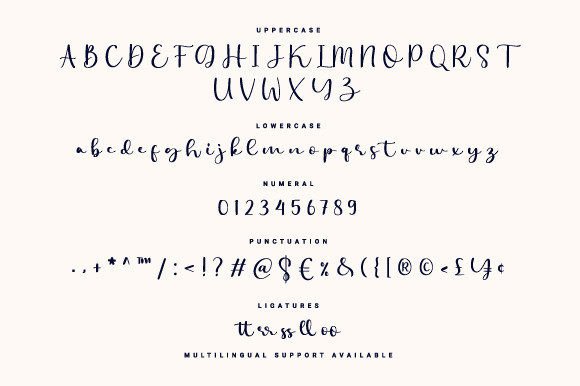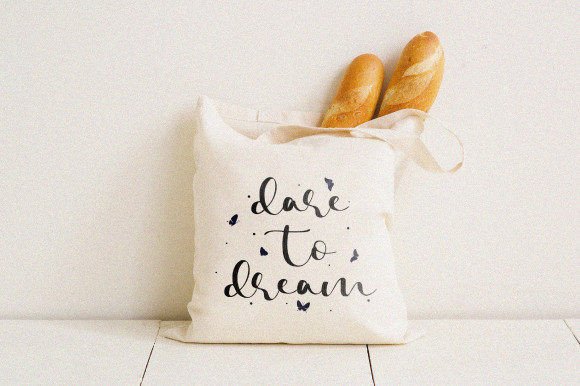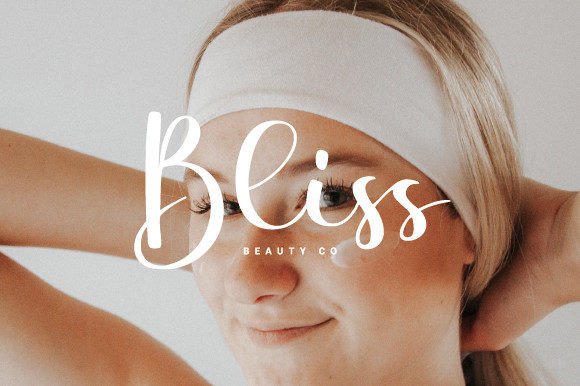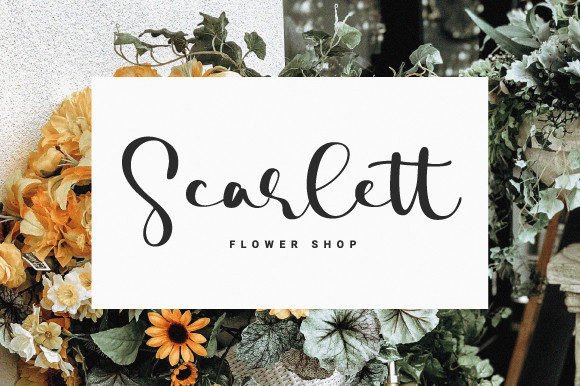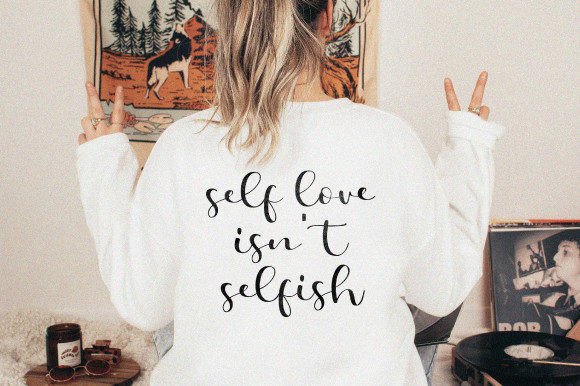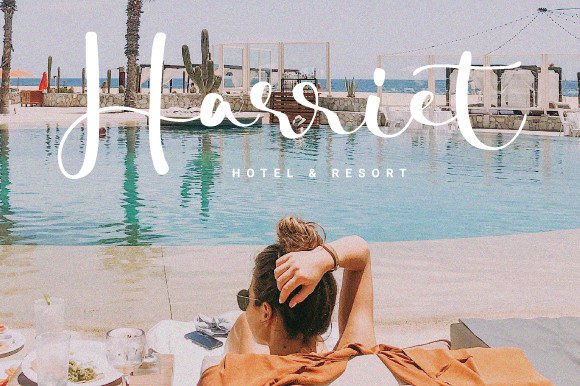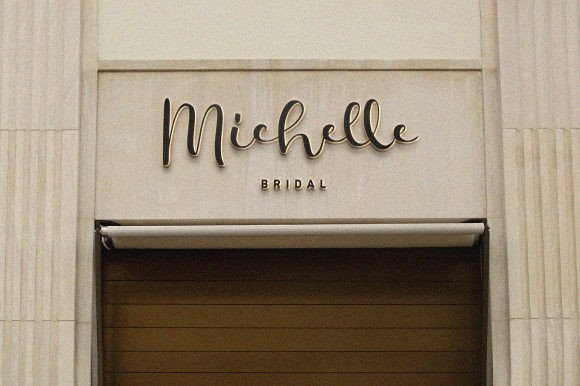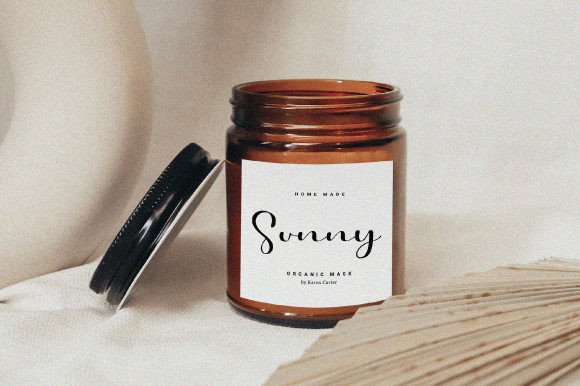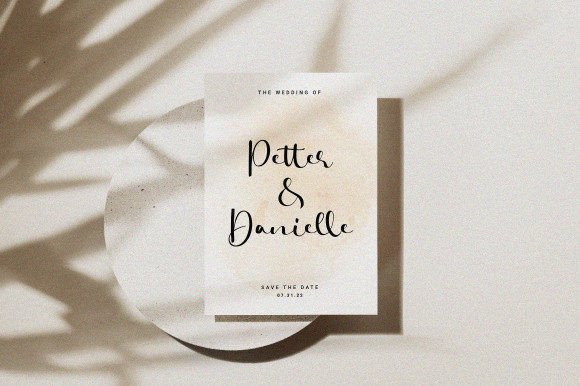
Really Darling Font
“Really Darling” is more than just a font; it’s a beautiful handwritten script typeface ready to accompany your charming design projects. With soft and elegant strokes, along with ligatures that contribute to its fresh and natural appearance, this font becomes a versatile and stylish choice for a variety of creative applications.
The beauty of “Really Darling” is in its handwritten script style. The soft scratches and flowing characters add a touch of elegance and charm to your text, making it suitable for a wide range of design projects. This includes but is not limited to wedding invitations, branding, logotypes, merchandise, and various other creative endeavors.
The inclusion of ligatures in “Really Darling” enhances its overall aesthetic. Ligatures create seamless connections between specific letter combinations, adding a level of sophistication to the font and making it look even more natural. This attention to detail makes it an ideal choice for projects where a fresh and refined appearance is desired.
The versatility of “Really Darling” shines through in its ability to adapt to different design contexts. Whether you’re working on wedding-related materials, creating a brand identity, or developing merchandise, this font adds a touch of charm and elegance that elevates your overall design.
Embrace “Really Darling” as a font that goes beyond just text; it becomes a companion to your charming design projects. Let it be the key to creating visually appealing and stylish designs that capture attention and leave a lasting impression. “Really Darling” is more than a font; it’s an invitation to infuse your projects with a touch of elegance and natural beauty.